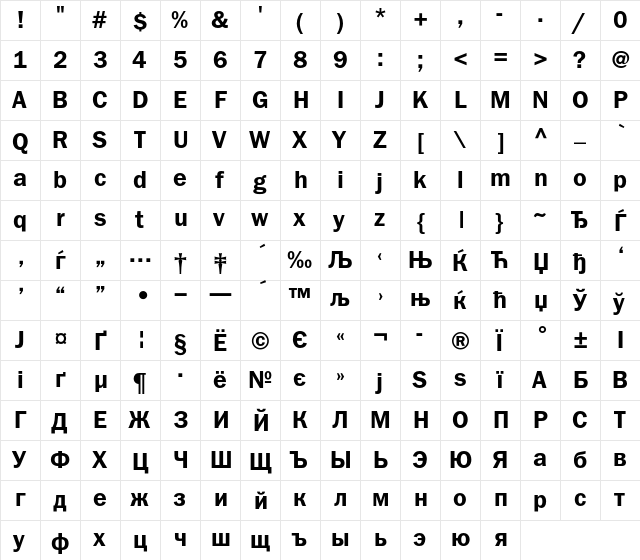
FranklinGothicDemiC Regular
Design Context for FranklinGothicDemiC Typeface
FranklinGothicDemiC has the quiet confidence of well-executed sans-serif typography: versatile, unobtrusive, and dependable at any size.
Font Pairing: Works well alongside a characterful serif or display font that can carry the expressive load while FranklinGothicDemiC handles the functional copy.
Pro Tip: Pair FranklinGothicDemiC with a display or serif font for headlines — its neutral character makes it an excellent supporting player in complex typographic systems.